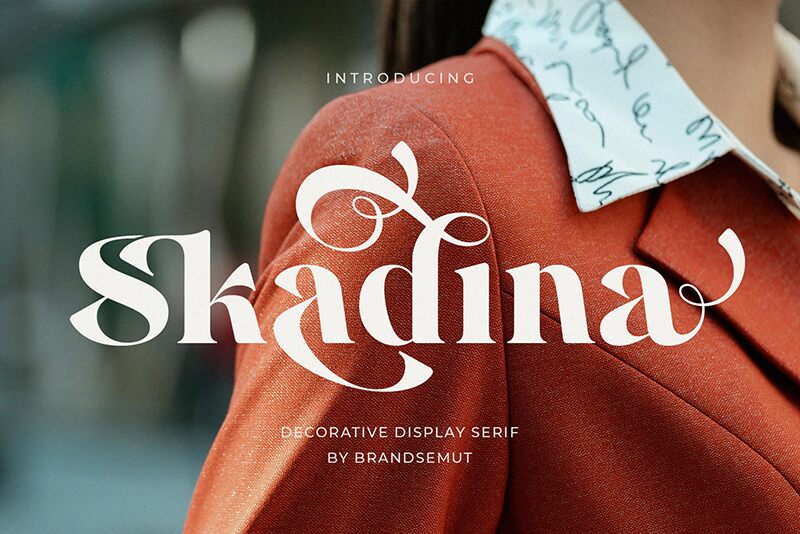
Skadina font is a serif free font designed by BrandSemut, its slight nuances and overall design reflecting a contemporary application of a historical influence. Created to carry a sophisticated and flowing feel, the designer tried his best to combine this almost artistic flair with the full functionality of the letter shapes. The efforts in this area are focused most clearly on the readability and legibility of texts written using this font since these are two of the most important aspects of typography in general.
There are countless project ideas that Skadina could be used for, both on a commercial and personal basis. Some of these popular examples are classic author book covers, books and magazine collections, product and packaging designs including produce, cautionary or informative signage, business cards, CVs, portfolios, posters, flyers and brochures.
The font stylistically goes well with cultural, corporate, or culinary branding, among many other niches.